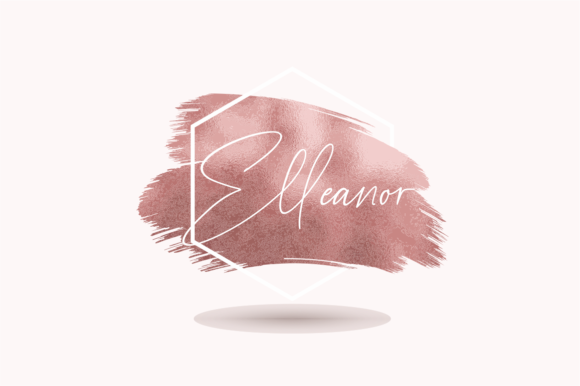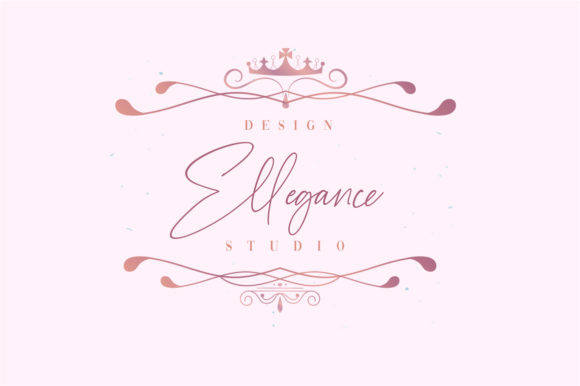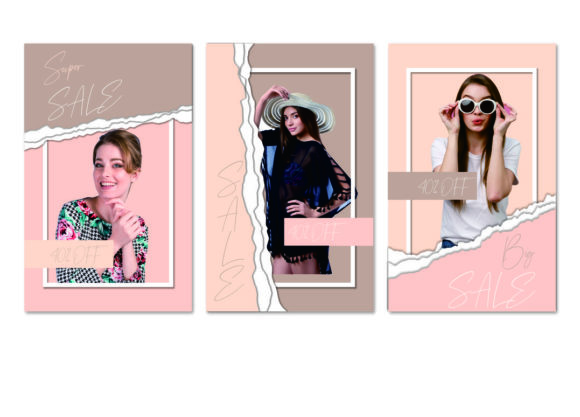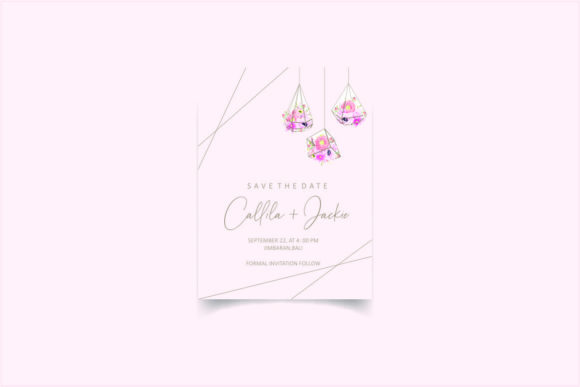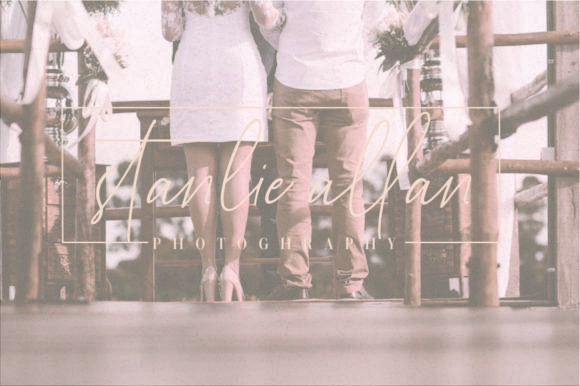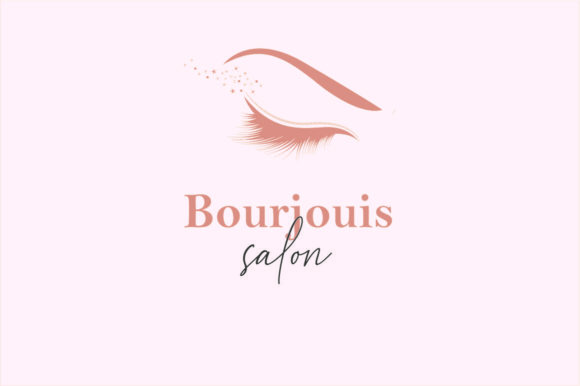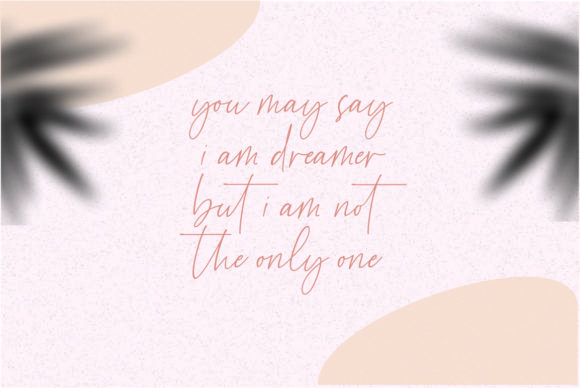
Cellestial Font
About Cellestial Font
Cellestial is a light and cool handwritten font with a stunning feel. Use it to turn any design project into a stand out!